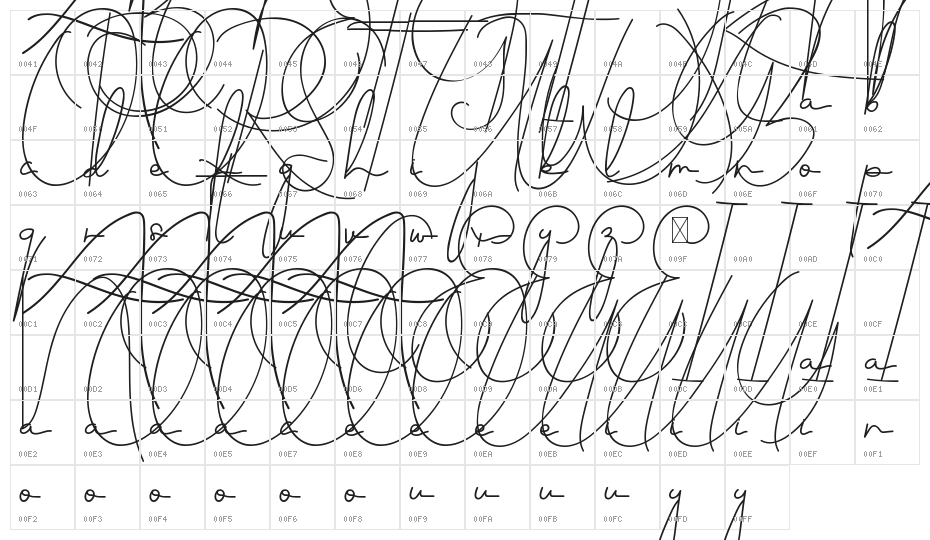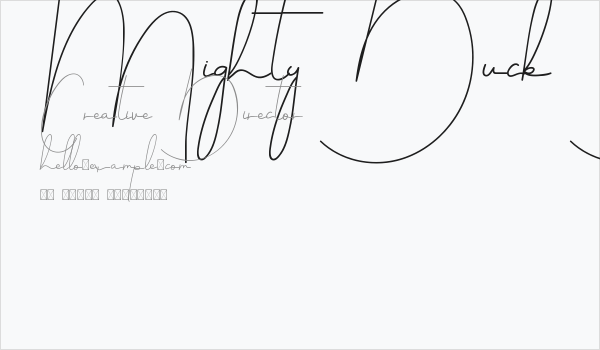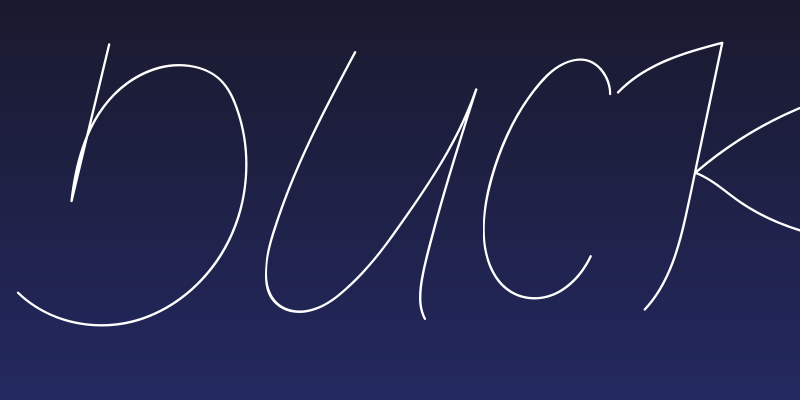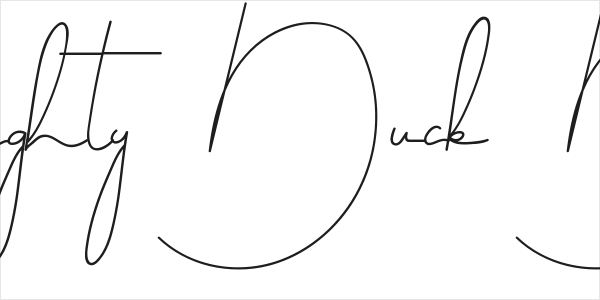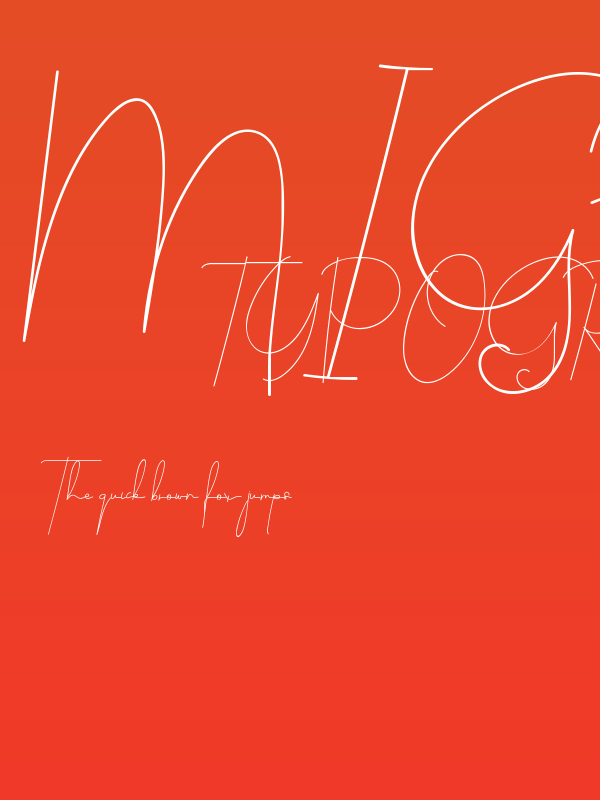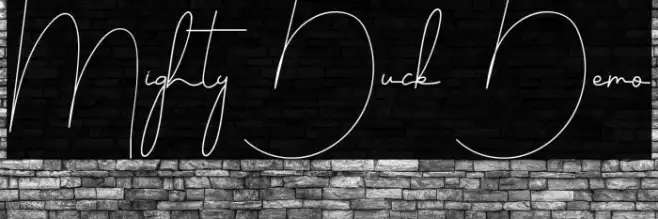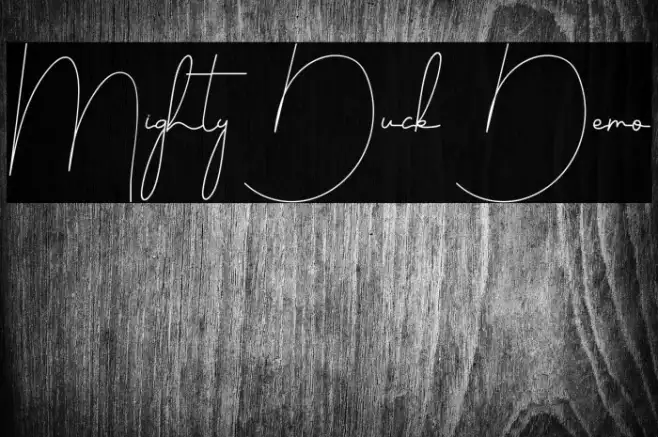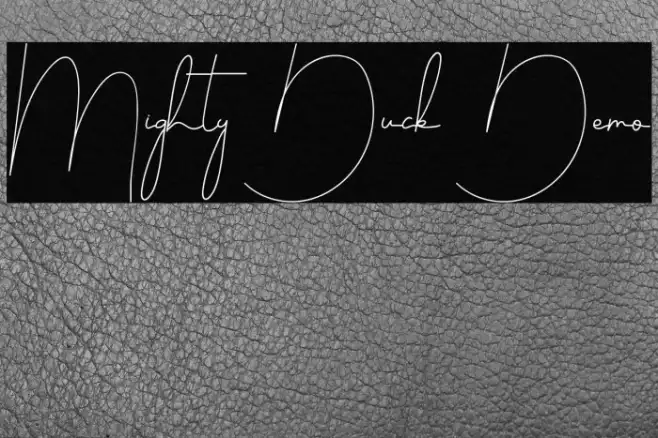
Mighty Duck Demo Font
Mighty Duck Demo Description
This font exhibits a unique handwritten style with elegant, flowing lines that create a sense of movement and fluidity. The uppercase letters are tall and slender, with a slight slant that adds a dynamic feel. The lowercase letters maintain a consistent height and are characterized by their smooth, continuous strokes, which often connect to form a cursive-like appearance. The font's overall design is airy and light, with a delicate touch that makes it suitable for creative and artistic projects. Its thin strokes and minimalistic approach give it a modern and sophisticated look, while the handwritten quality adds a personal and approachable touch.
| Proposed Projects | Ideal for wedding invitations, personal branding, artistic projects, and creative designs. |